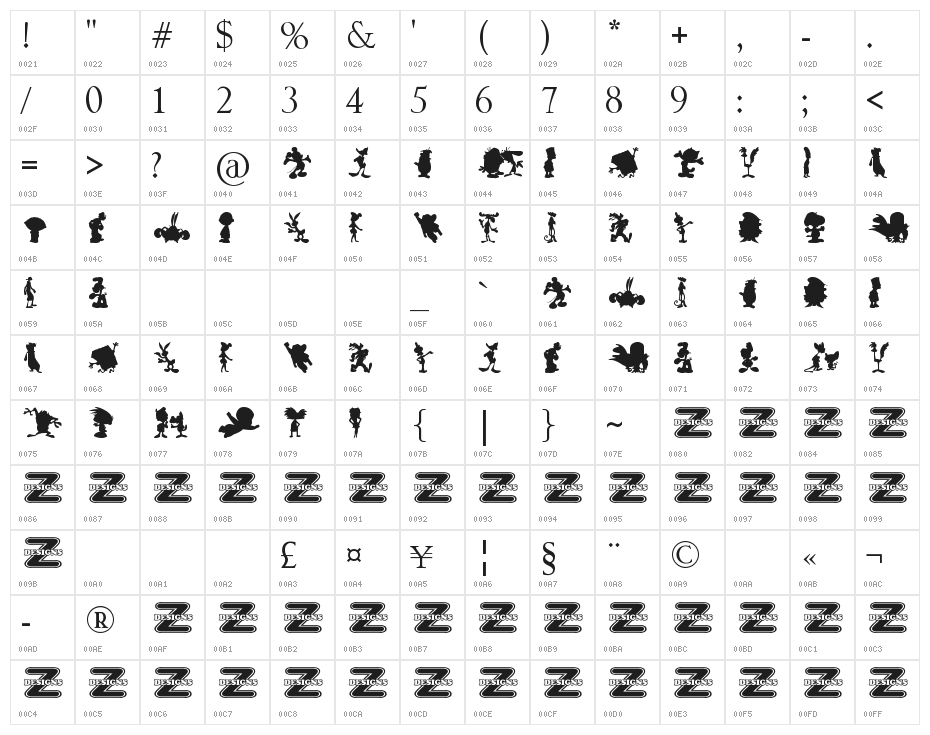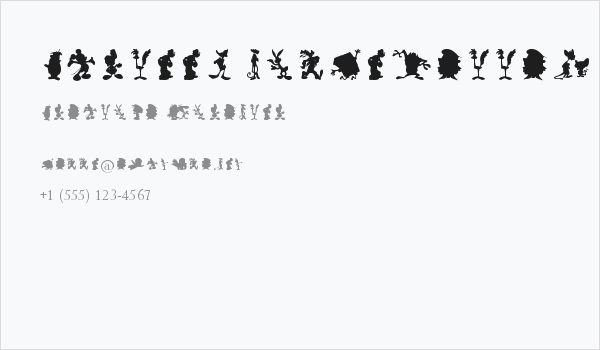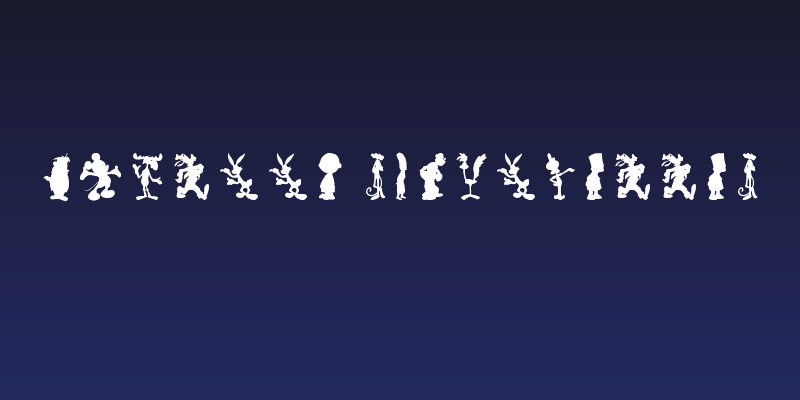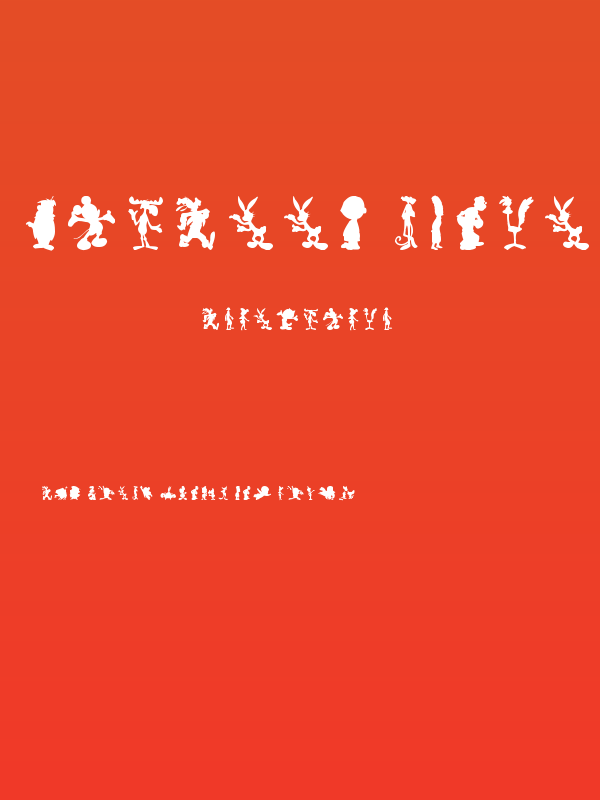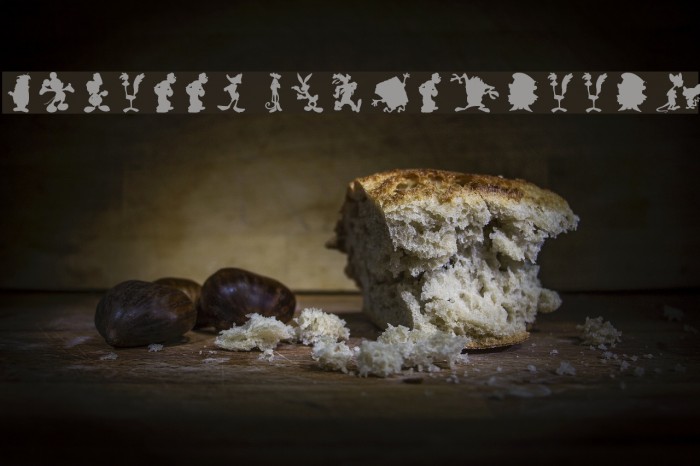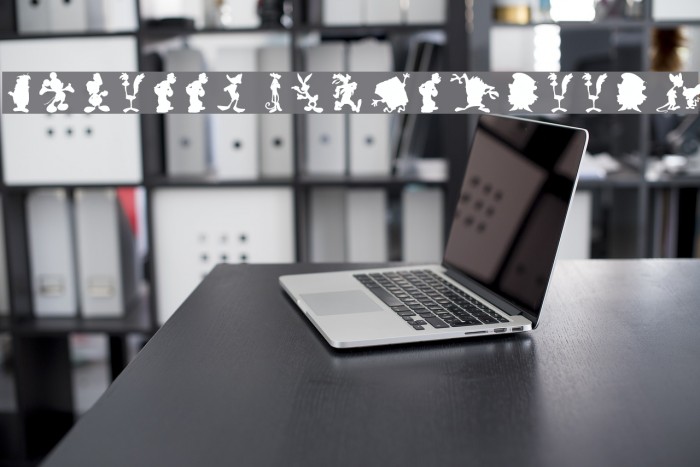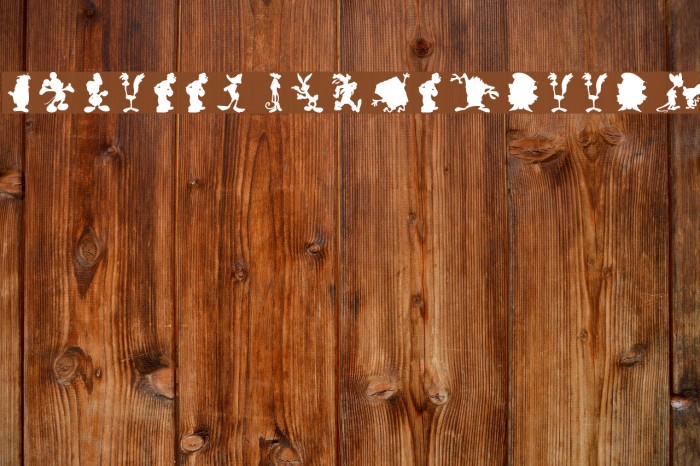
Cartoon Silhouettes Font
Cartoon Silhouettes Description
A decorative font featuring cartoon character silhouettes for uppercase and lowercase letters, while numerals and punctuation are rendered in a classic serif style with high contrast and elegant curves.
| Overall Style | Playful, Whimsical, Decorative |
| Use Case | Headlines, Logos, Themed graphics |
| Proposed Projects | Children's books, playful posters, themed party invitations, cartoon branding, educational materials. |